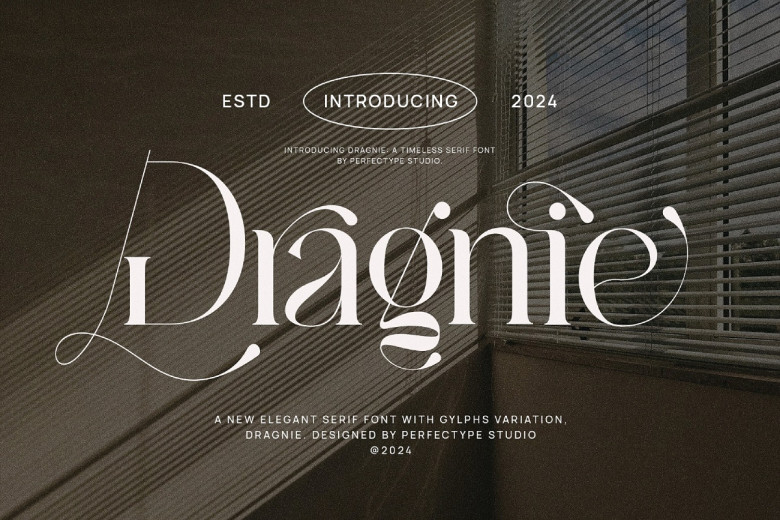
Dragnie Font
Dragnie is a sophisticated serif font with a modern and refined style, perfect for branding, logos, wedding designs as well as social media posts, advertising packaging for products, labeling, photography, watermark, invitation, stationary and any other design that requires advanced comprehension – you will not regret investing in this font!! You won’t be sorry you made your choice!!
Dragnie Serif Font